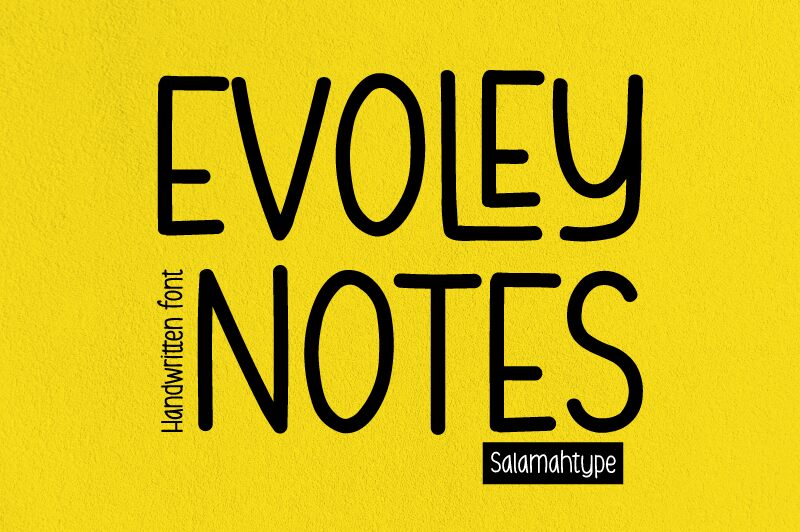
Evoley Notes
Evoley Notes, by acclaimed designer Aswangga, is the perfect display font for your next creative project. With a unique comic-style and handwritten flair, this semi-light typeface adds a playful touch to any design. Whether you're creating posters for a music festival or designing an eye-catching logo for your start-up, Evoley Notes is sure to make a statement. And with its condensed width, this font is especially well-suited for projects where space is tight - like packaging design or social media graphics. Give your designs a little extra personality with Evoley Notes!